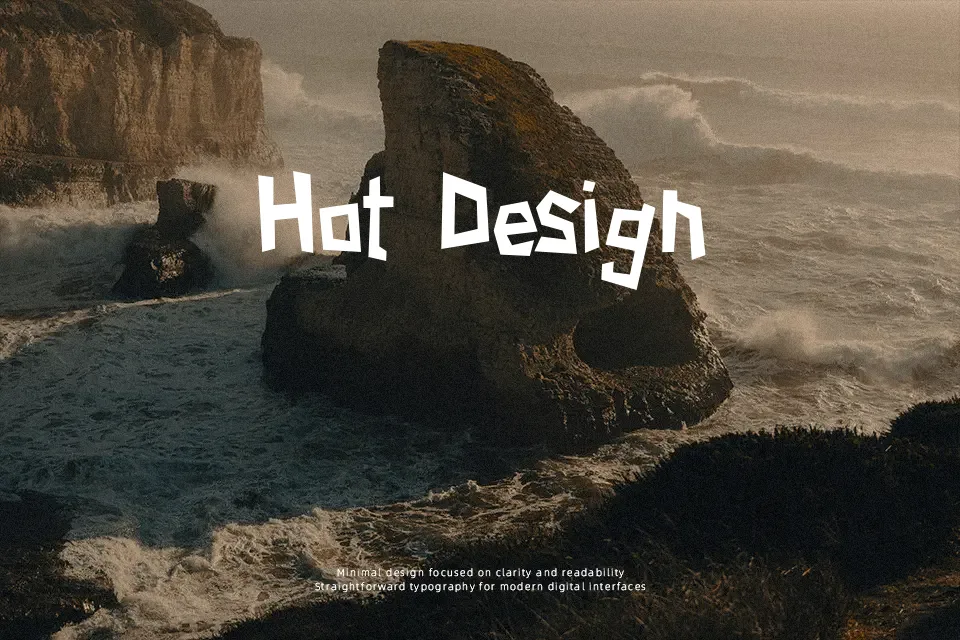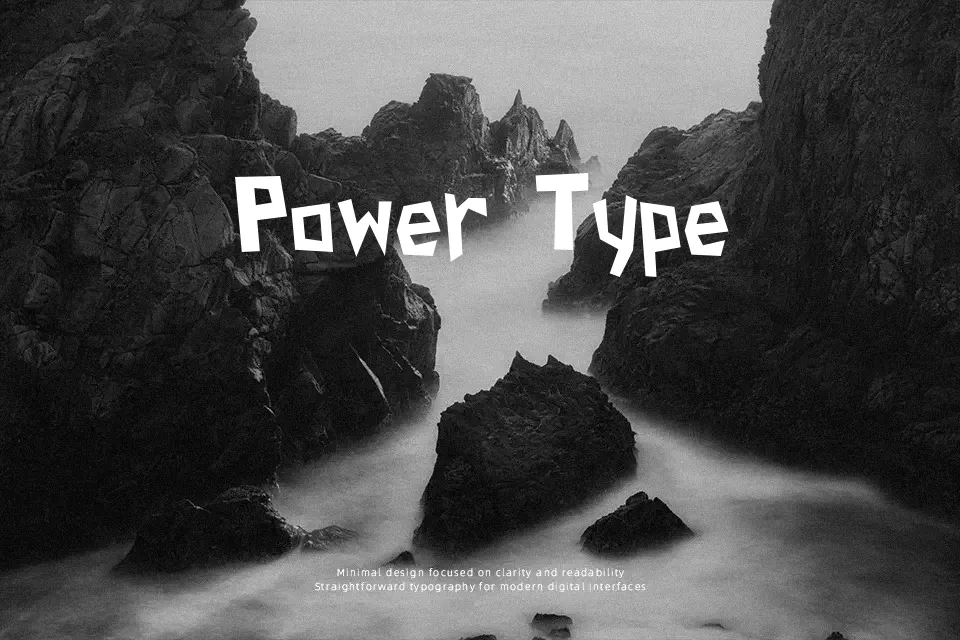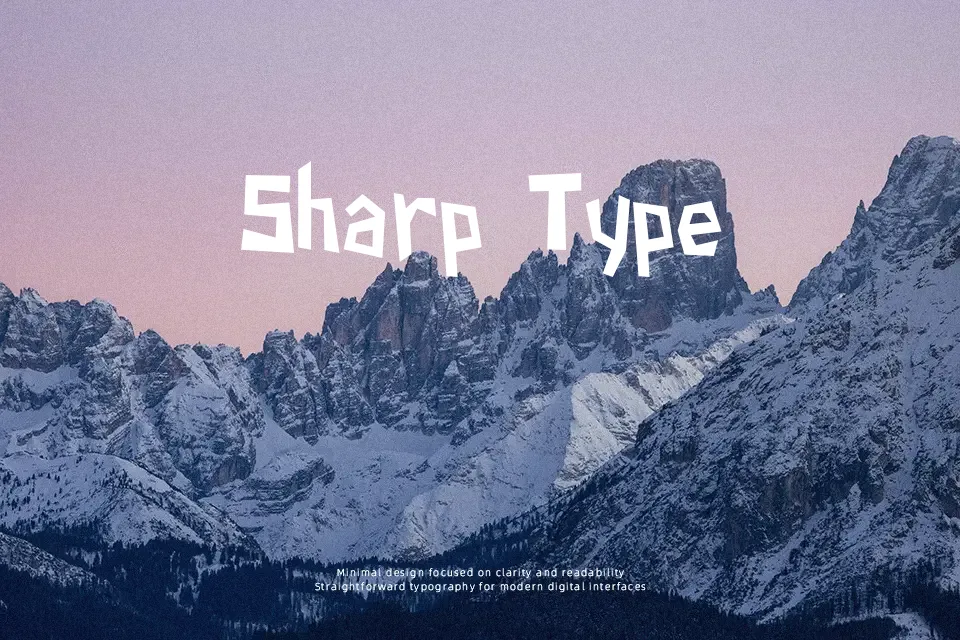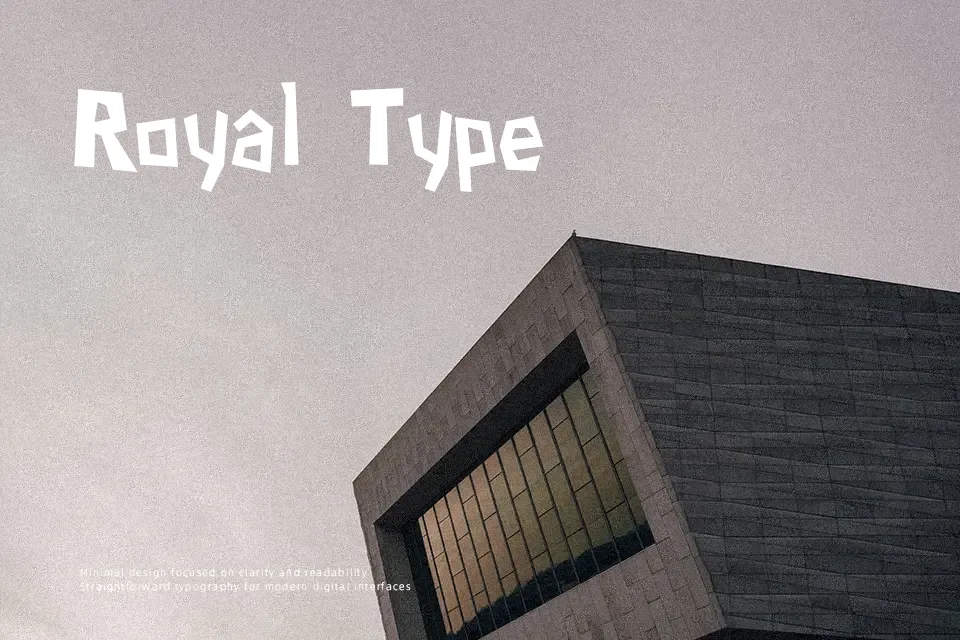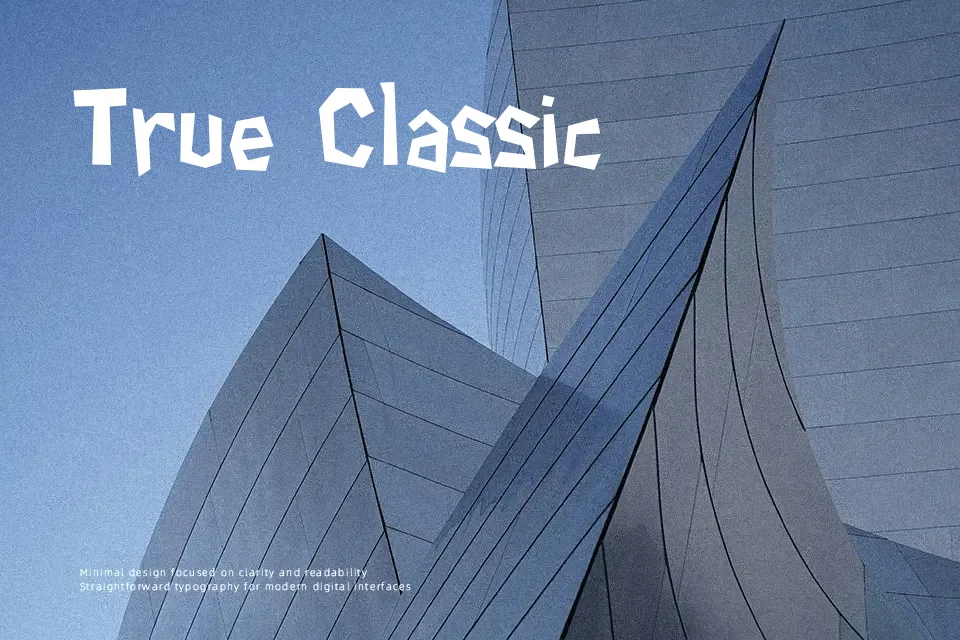
Paper Cuts 2 Font
Designed by Empire of Dust
Paper Cuts 2 Font uses irregular, sharply cut letterforms that give each character a handmade collage-like appearance. The strokes are heavy and uneven, with angular edges, varied internal shapes, and broadly proportioned forms that create a lively visual rhythm. Spacing remains clear enough for short words and large headings, while the decorative outlines keep the design from feeling mechanically uniform. It works well for playful event graphics, craft-themed labels, and children’s display text. The distinctive edges hold attention in larger settings, but their detail becomes harder to read in small captions and extended copy.
Best For: children’s activity posters,craft product packaging,party invitations,playful shop signage
Not Ideal For: long paragraph text,small interface labels,corporate reports,technical manuals
Perfect for headline, invitation, and kids, with a creative and cartoon style.